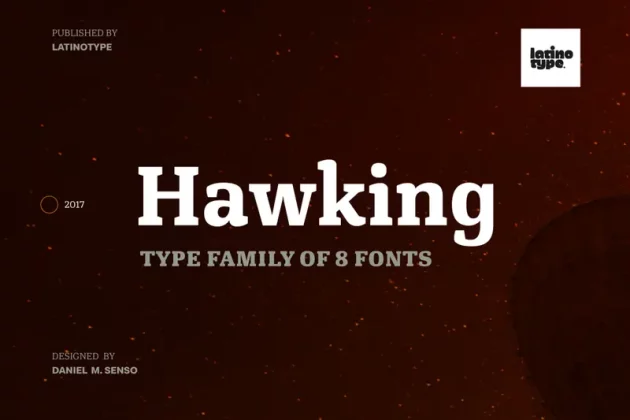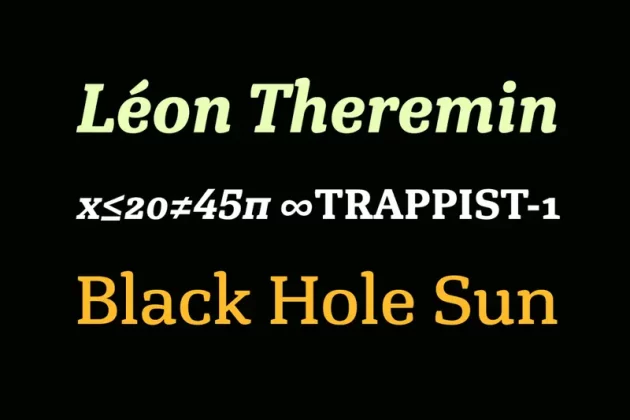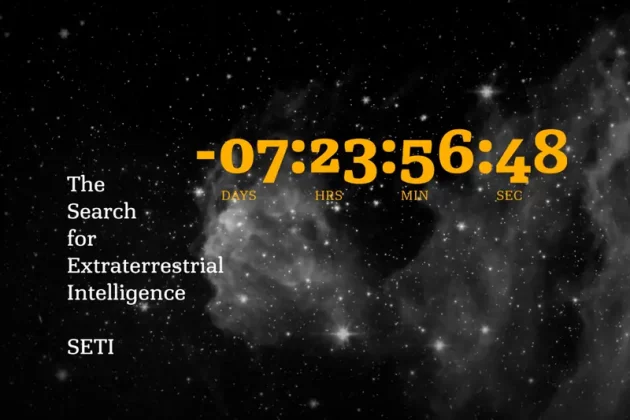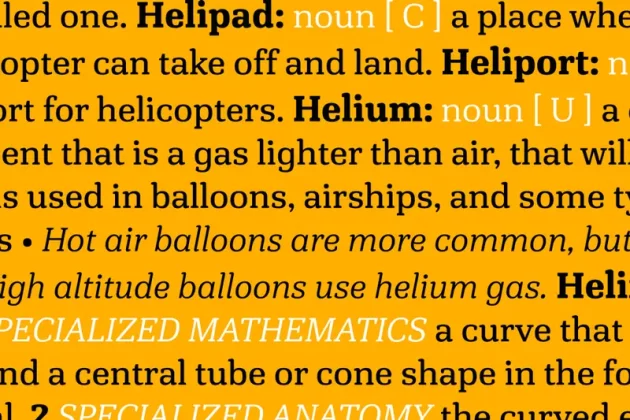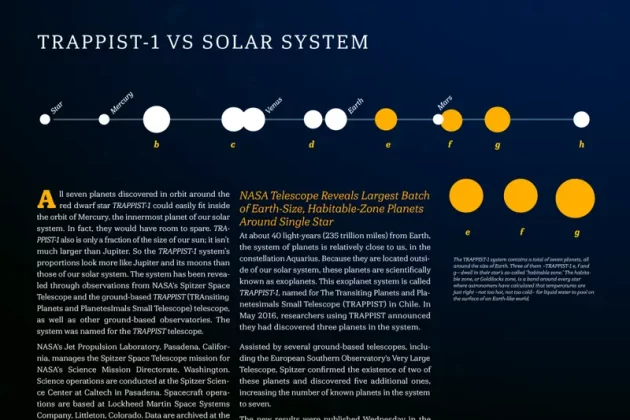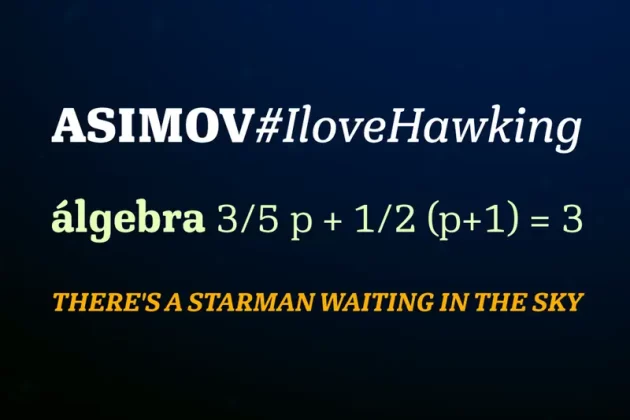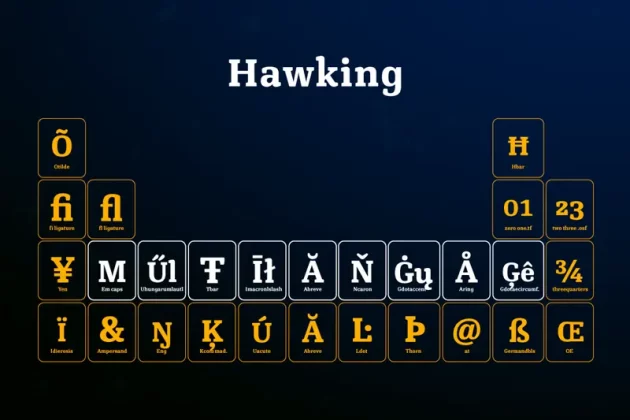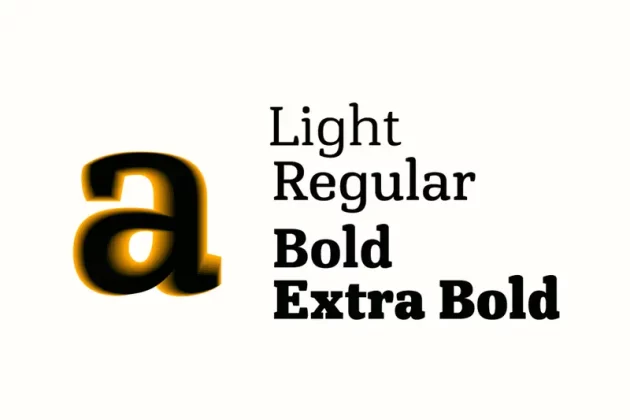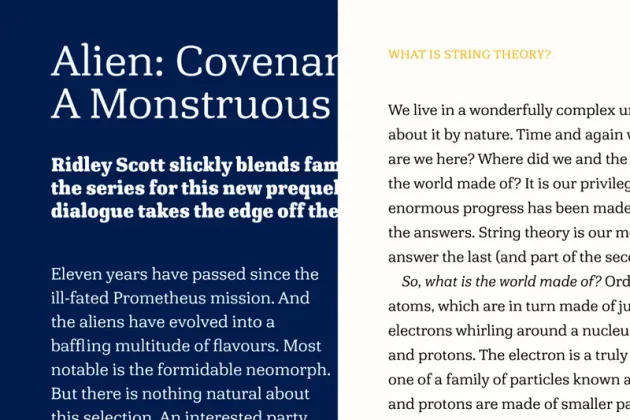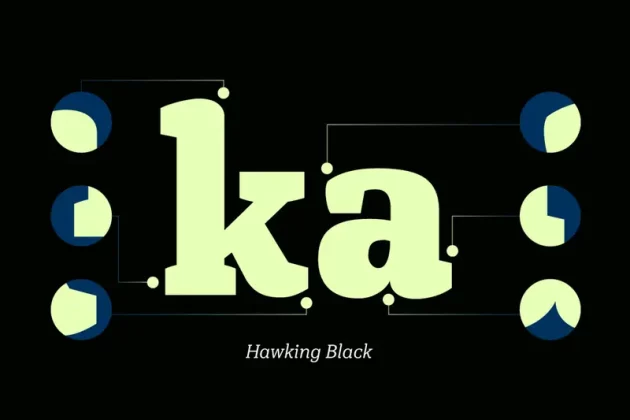
Hawking Font
About Hawking Font
Hawking is a slab typeface with slightly squarish shapes and a rational, modern look. The font has a minimal modulation, generous counterforms and relatively large x-height with lowercase ascenders extending above the cap-height for more legibility. Serifs are composed of curved and straight lines, which give the font a robust appearance and strong personality.
Hawking was specially designed for use in scientific publications (hence its name), but it can also be used with other type of continuous text, such as journalistic, technical or literary texts. Its heavier weights make it also well-suited for any display use (e.g. headlines)
Hawking comes in 8 styles: 4 weights plus matching true italics. The font also includes ligatures, proportional oldstyle figures, and tabular and lining figures. The family comes with the Latinotype’s standard character set that supports 213 different languages.